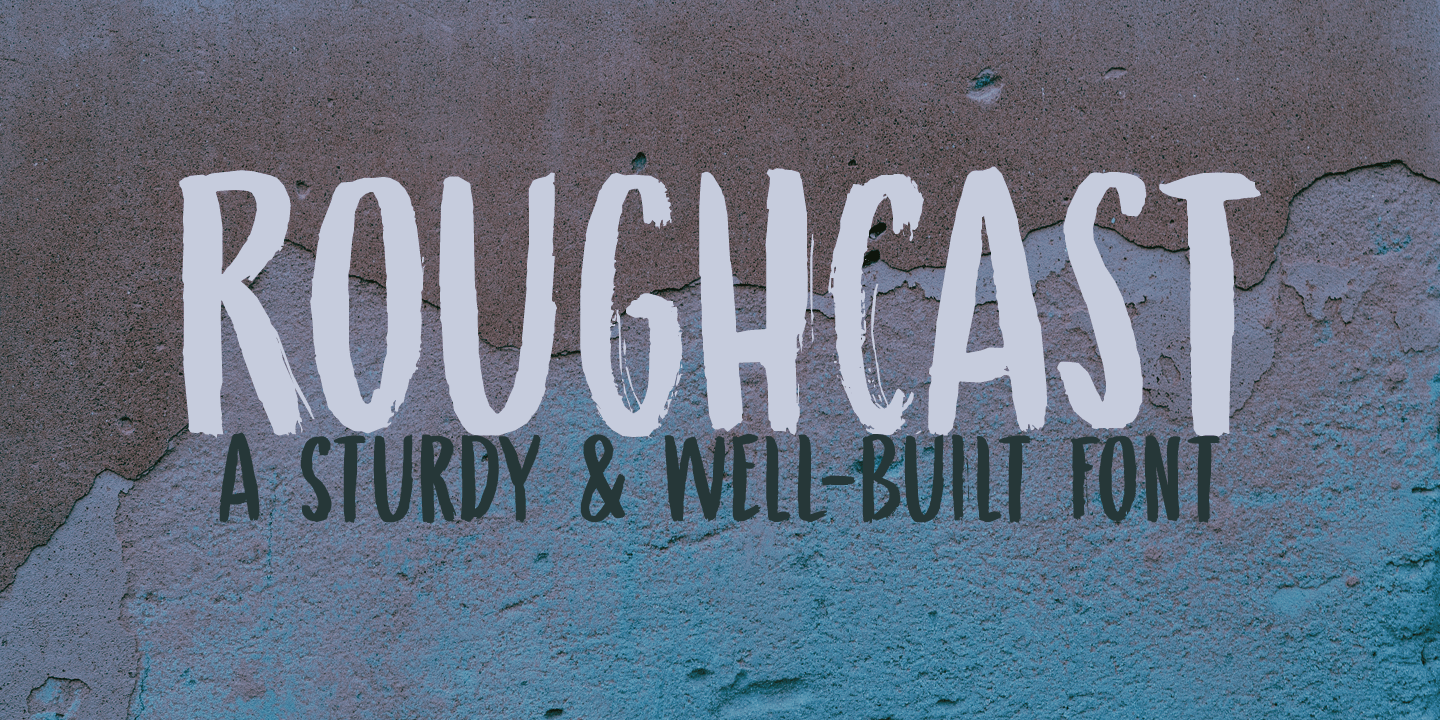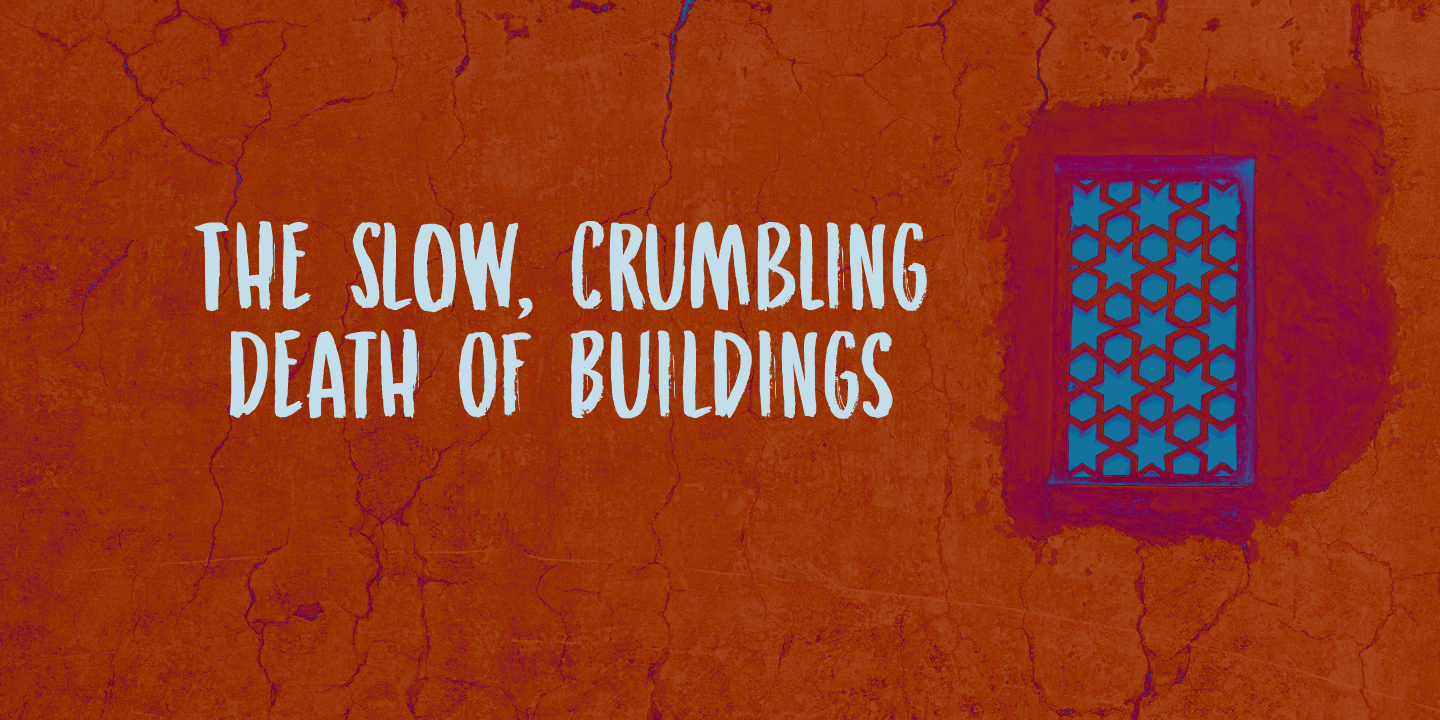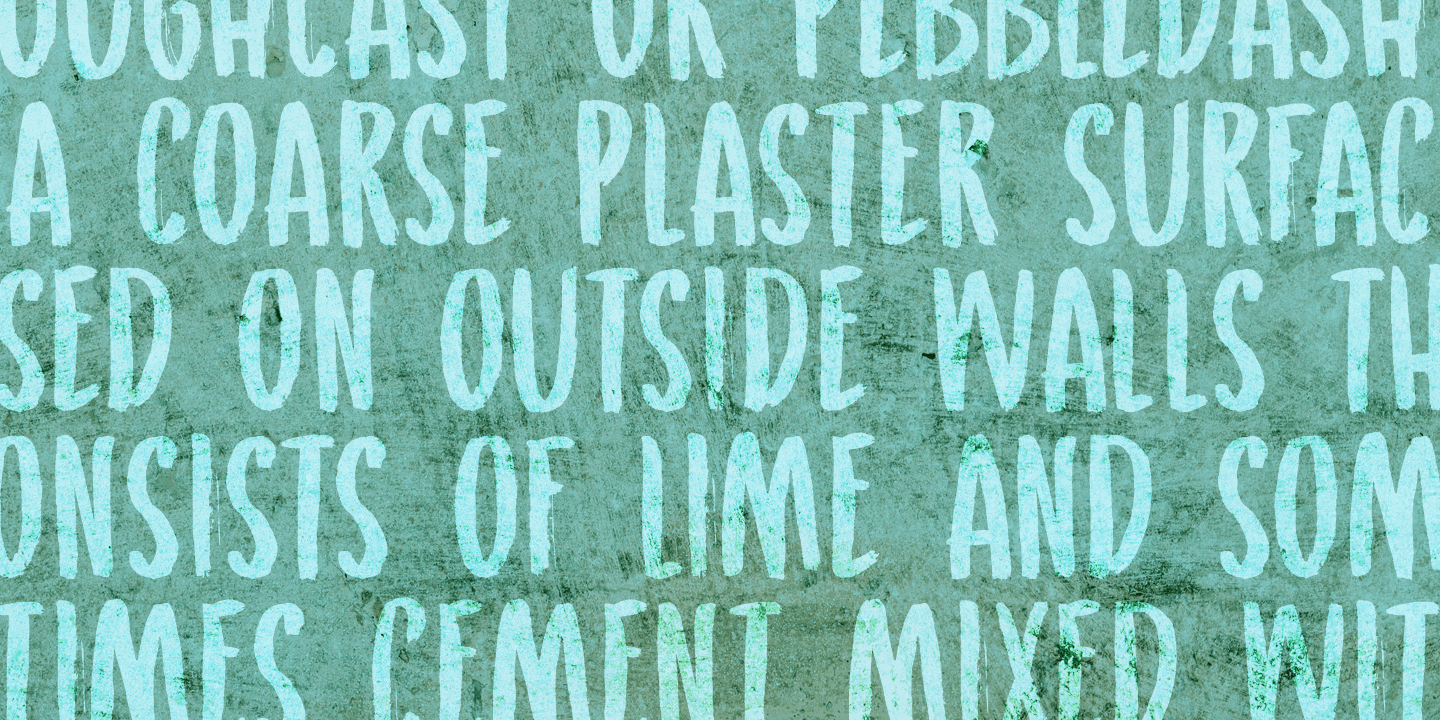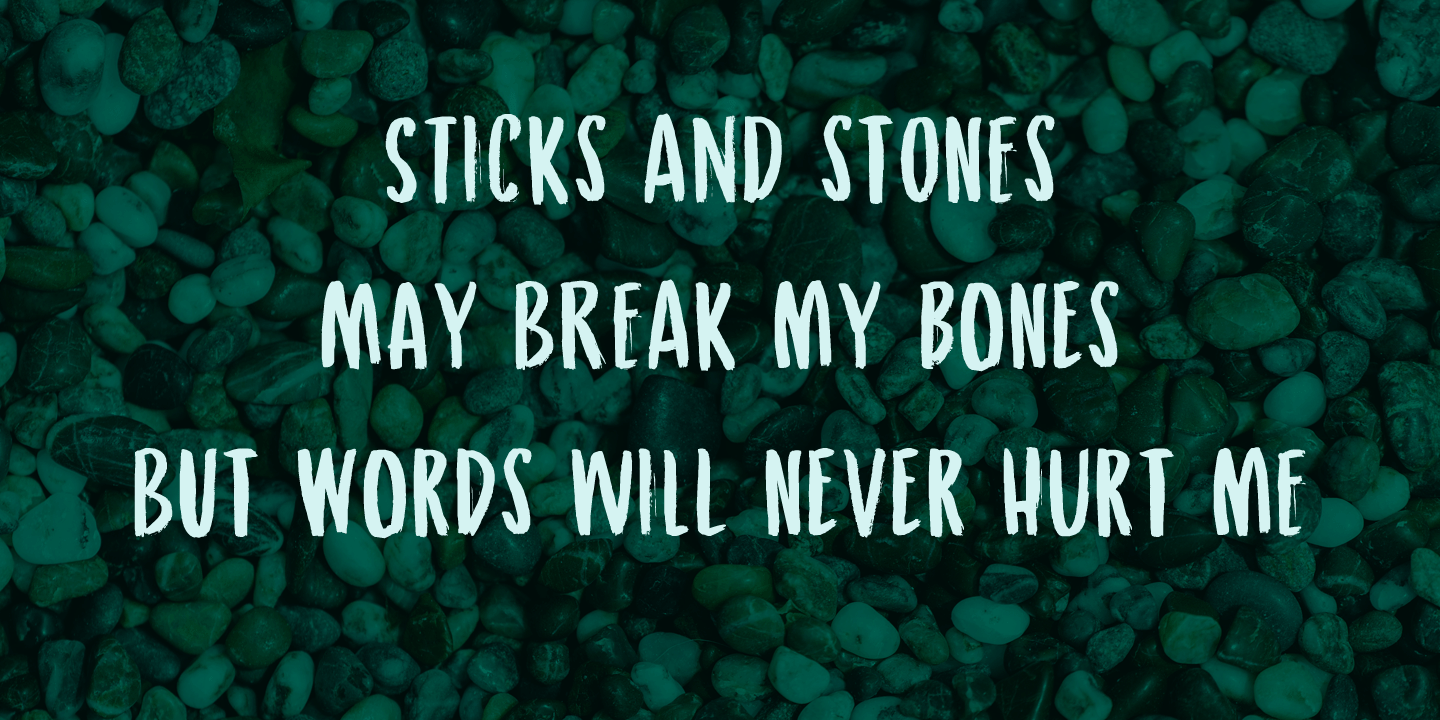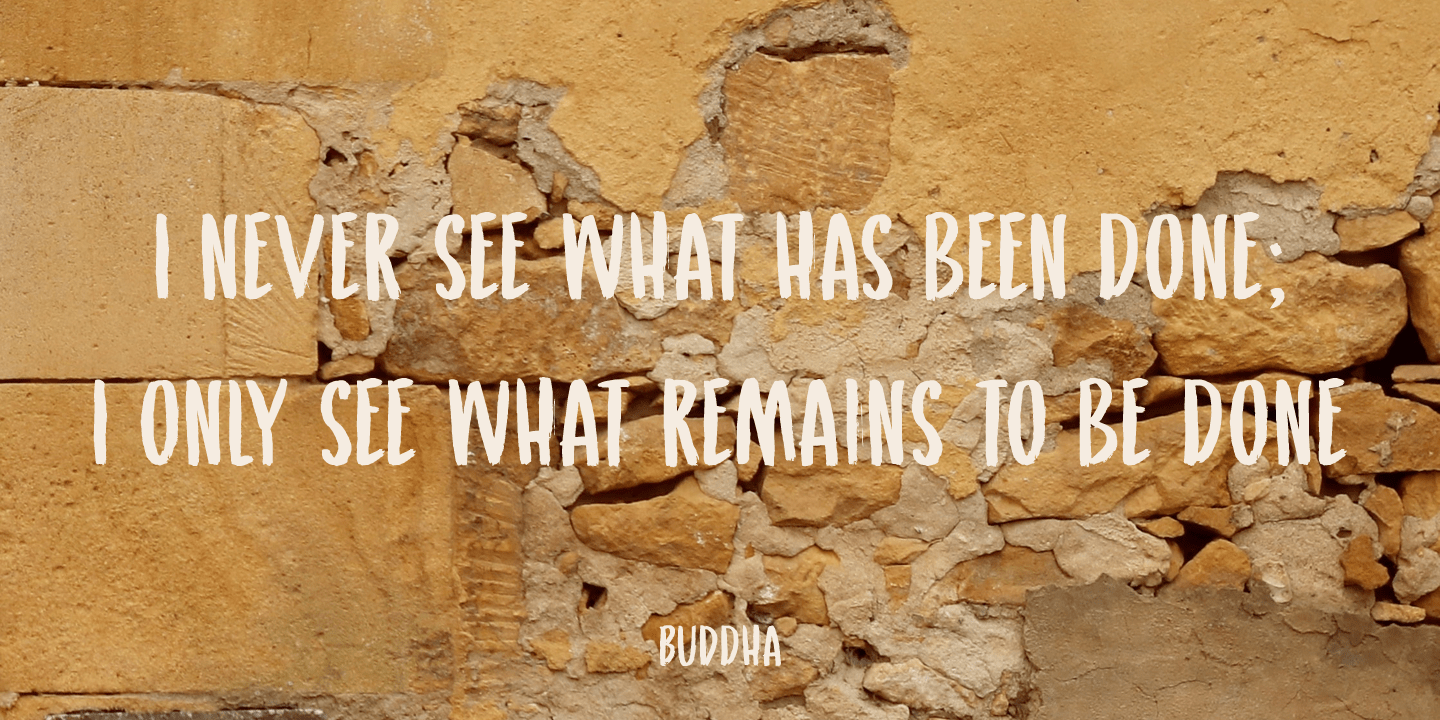
Roughcast
Roughcast is a kind of outside plaster, composed of cement and pebbles. It's not the best looking plaster and it is estimated that in the UK, a roughcast outer reduces the value of a house by 5%.
Roughcast font is actually quite an attractive brush font. I made it with a brush I found hiding underneath my stove (where it had been for a while). I cleaned it and used it to make a couple of fonts, including Roughcast.
Roughcast is best used for packaging, book covers and posters.
Roughcast Italic
Roughcast Regular